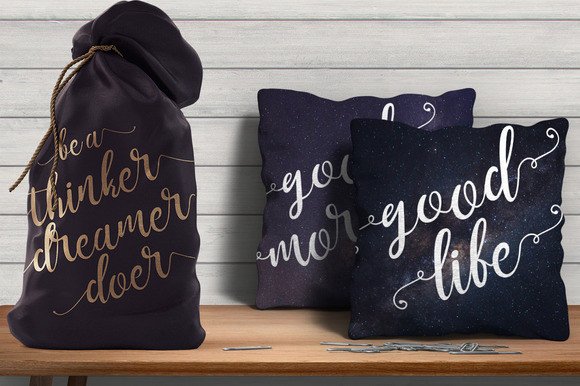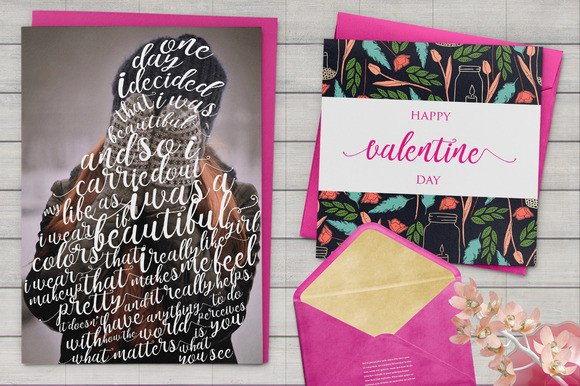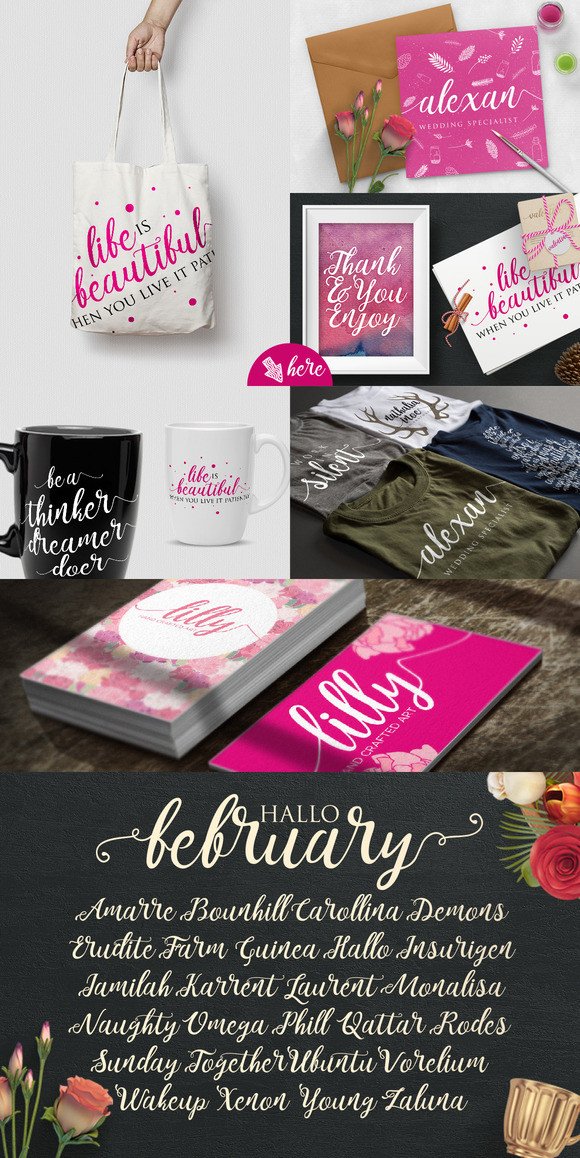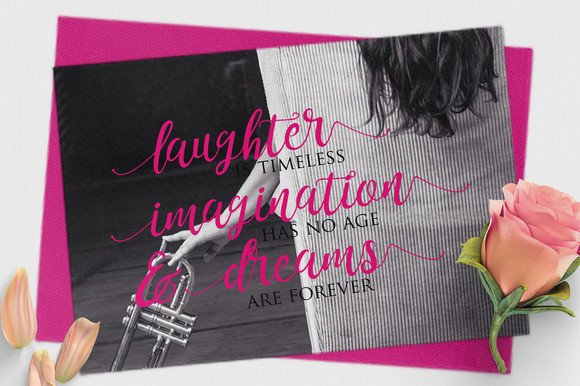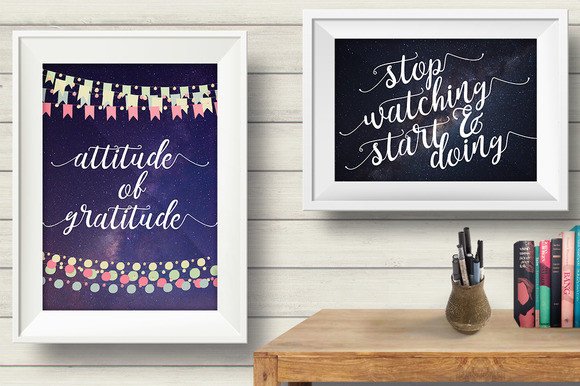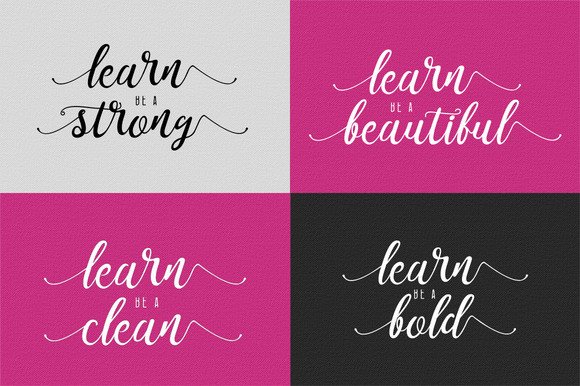
Noelan Font
About Noelan Font
Noelan has a clean and simple modern design. Included are many alternates so you can mix and match the design and swashes.
Can be used for various purposes such as wedding cards and envelopes, birthday and greeting cards, letterheads, posters, labels and much more!